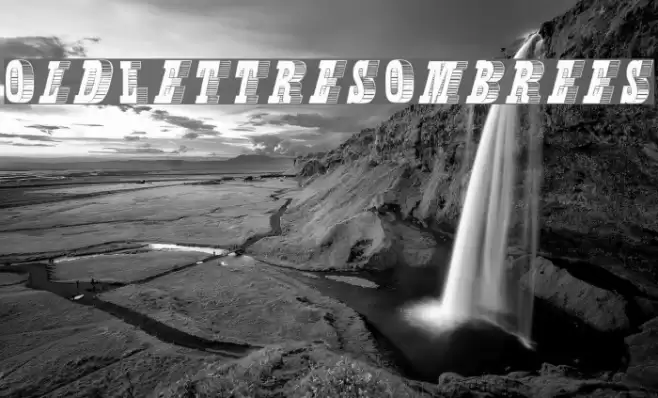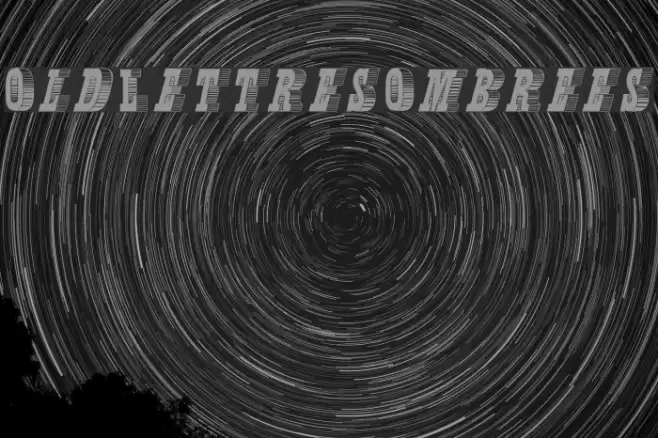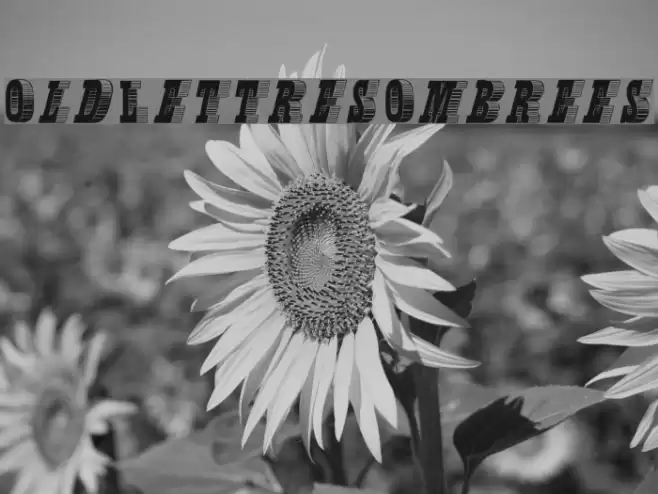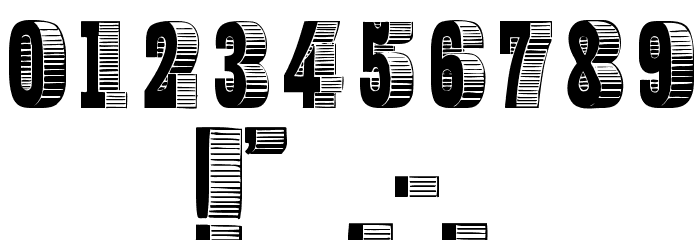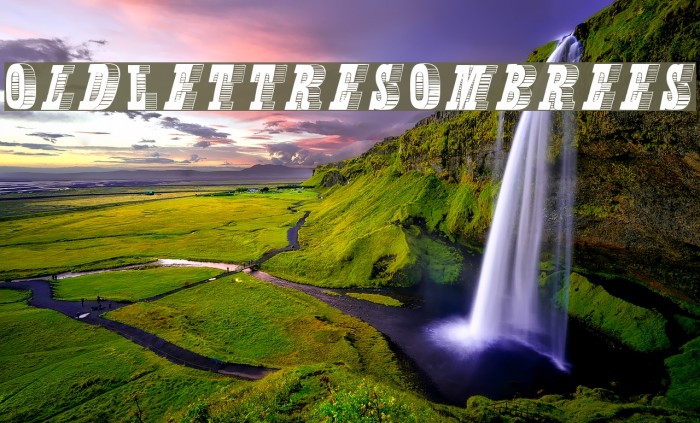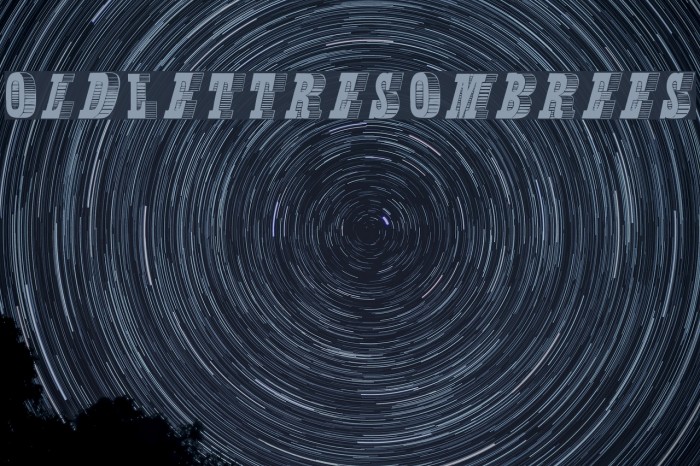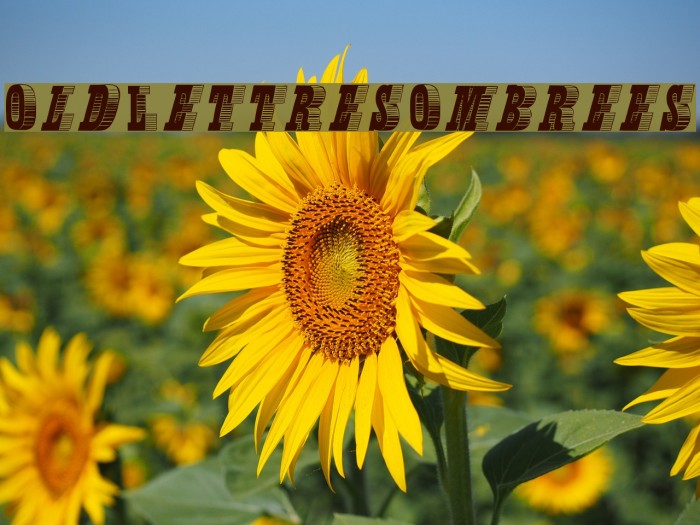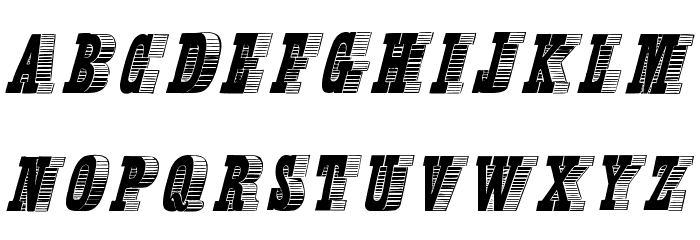
OldLettresOmbrees Font
OldLettresOmbrees Description
This font features a bold, decorative style with a distinct shadow effect that gives it a three-dimensional appearance. Each character is outlined with a series of parallel lines, creating a sense of depth and movement. The uppercase letters are particularly striking, with their thick strokes and intricate detailing. The numbers and special characters maintain the same bold and shadowed aesthetic, ensuring consistency across all glyphs. This font's unique design makes it ideal for eye-catching displays and creative projects.
A bold, decorative font with a shadow effect and intricate detailing from Uncategorized fonts.
- Proposed Projects: Ideal for vintage posters, logos, signage, and any project requiring a bold, eye-catching typeface.
- Overall Style: Vintage